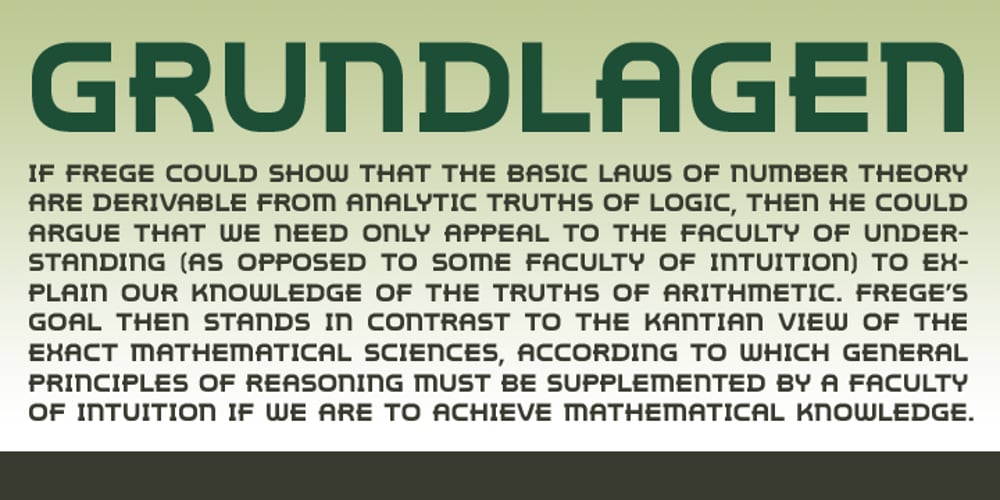
Grundlagen Font Family was designed by Alec Julien and published by Haiku Monkey. Grundlagen contains 2 styles and family package options. Grundlagen is a strong face suitable for headline text, but also workable at text sizes.